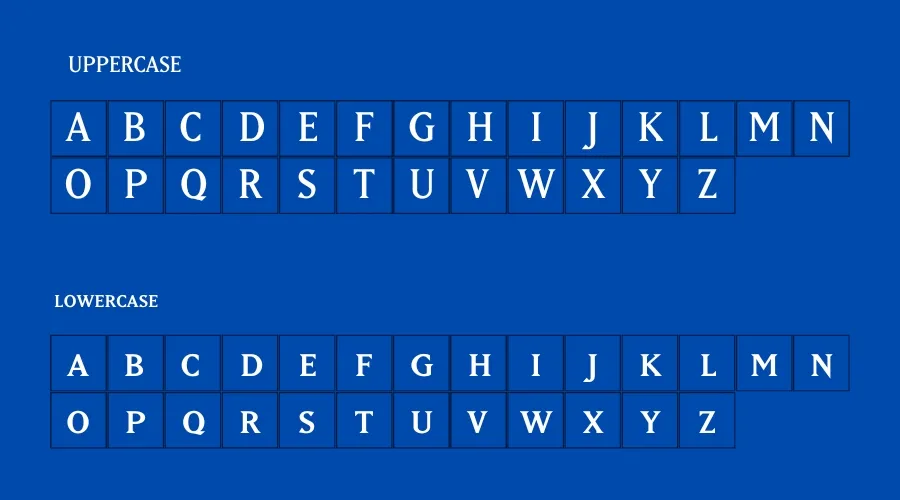
About Matrix Regular Small Caps Font
There are many uses for this stunning font that we will discuss in the next section, which makes it a favorite among designers. Logo designs for movies and kids' staff are all available. You pick Matrix Regular Small Caps Font for headlines and titles of web pages, channels, and projects.
Numerous companies would like to use this font for titles, labels, and blogs in publications, and news publications. Documentations, presentations, reports, diplomas, and many other documents are commonly typeset using this font.